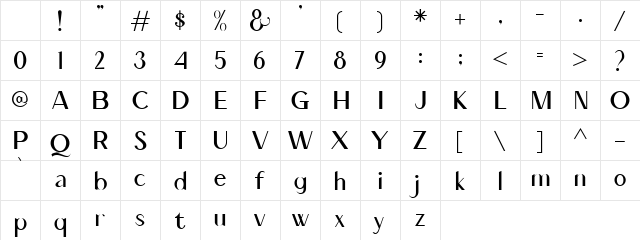
Elcorita is a composed and adaptable typeface that performs quietly and consistently across a wide range of design contexts.
Pro Tip: Use Elcorita in both headline and body roles to test its range before committing to a single application.